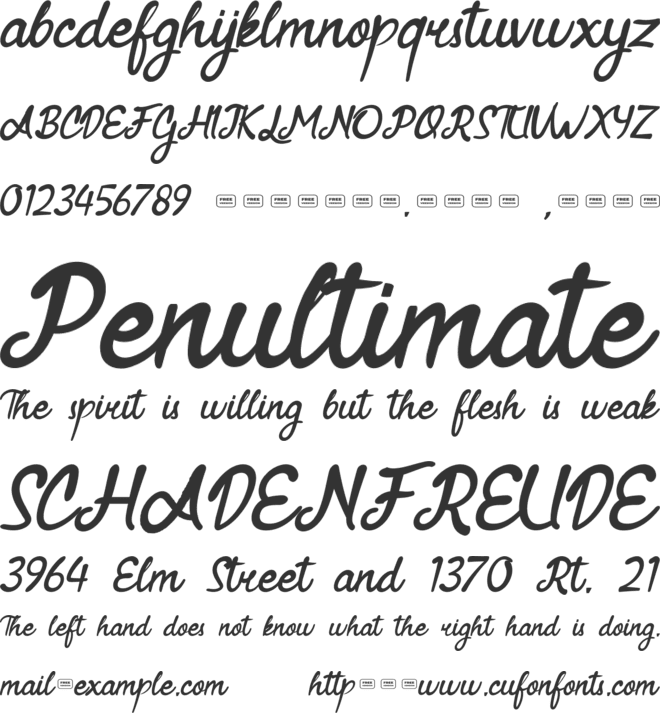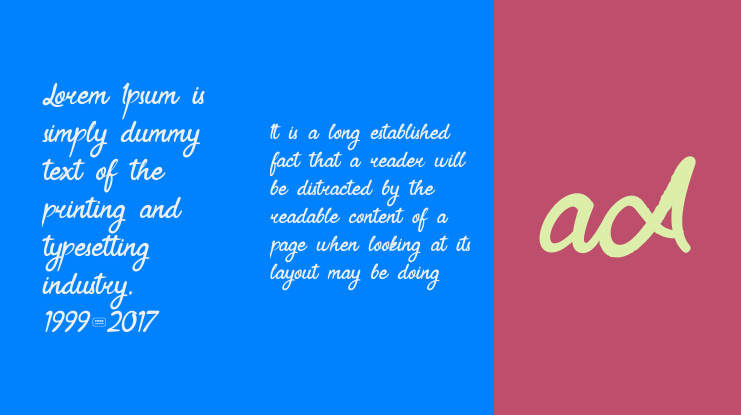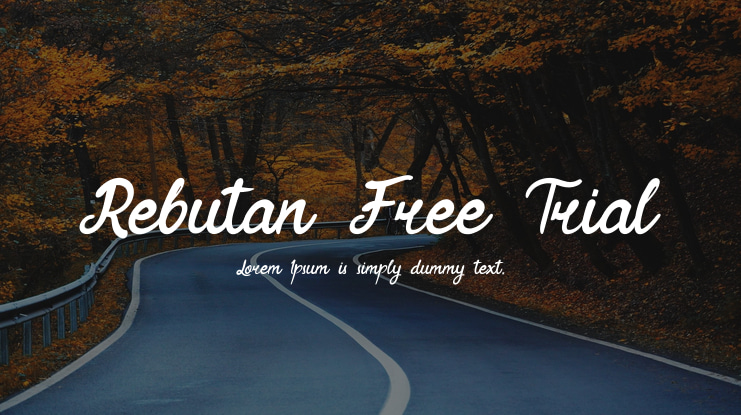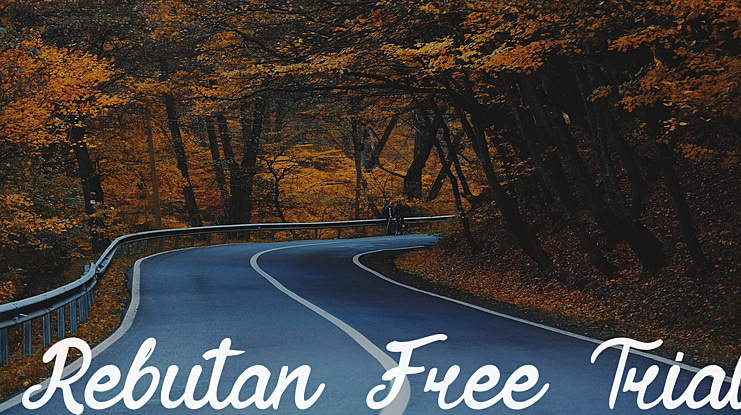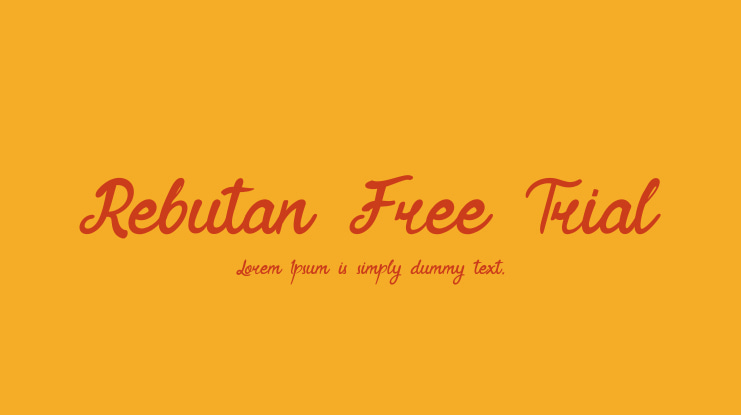
Rebutan Free Trial Font
Rebutan is a handwritten script font.
It has an authentic modern calligraphy look making it perfect for branding and digital designs.